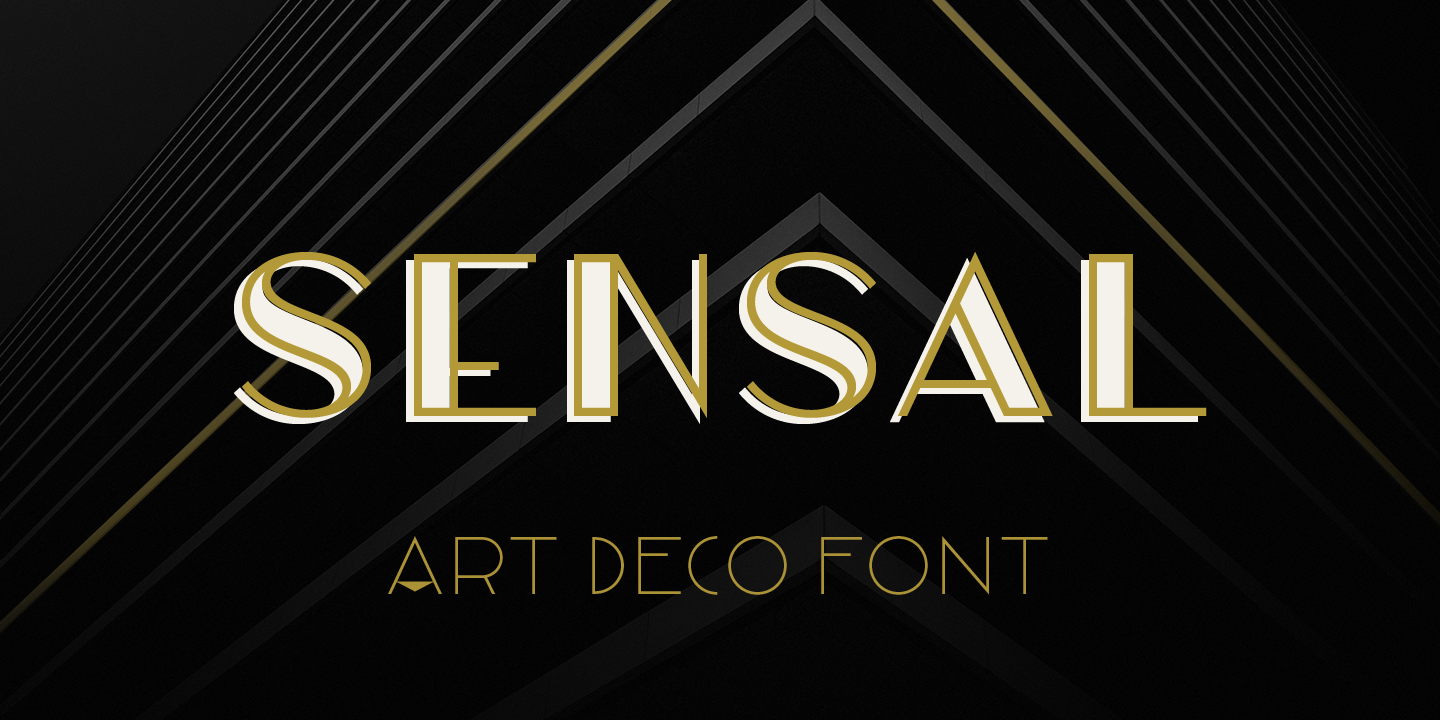
The Sensal Font excels in various design applications including sensory experience branding, mindful wellness communications, tactile product packaging, experiential marketing materials, sensory therapy practice identities, mindfulness center signage, aromatic spa promotions, sensory-rich restaurant menus, therapeutic touch facility marketing, and immersive cultural projects that demand sensory sophistication and experiential elegance.
What makes the Sensal Font exciting is its remarkable embodiment of sensory awareness and experiential depth through letterforms that capture the essence of mindful perception and the rich tapestry of human sensory experience. This typeface demonstrates exceptional sensitivity through carefully crafted characters that suggest the gentle touch of texture, the subtle awareness of sensory details, and the mindful appreciation that comes from truly experiencing the world through all five senses. The font's sensory personality makes it perfect for wellness brands and experiential organizations seeking to communicate mindful awareness, sensory richness, and the kind of deep perception that creates meaningful connections through typography that literally feels alive with sensory sophistication.
The Sensal Font family typically includes nuanced weight variations that enhance the sensory aesthetic, featuring tactile styling options and extended character sets optimized for wellness communications and experiential applications. These family options often include sensation-inspired alternates, mindfulness symbols, and experiential decorative elements that provide designers with comprehensive tools for creating authentically sensory typography that celebrates human perception while maintaining contemporary design appeal and therapeutic credibility.
Wellness professionals and experiential brands consistently choose Sensal Font Free Download for projects requiring typography that communicates sensory awareness and mindful sophistication. This typeface delivers exceptional performance in wellness marketing, sensory branding, and experiential communications where establishing connection and creating immersive atmosphere is essential for meaningful engagement. The font's sensory character makes it particularly effective for spa and therapy applications. Download Sensal Font Free Download today to access this perceptive typeface that transforms sensory communications with its mindful elegance and experiential sophistication, creating compelling wellness experiences that honor the magnificent complexity of human perception while celebrating the mindful awareness that enriches every sensory moment and therapeutic encounter.